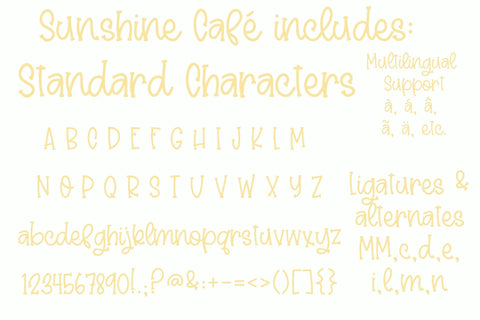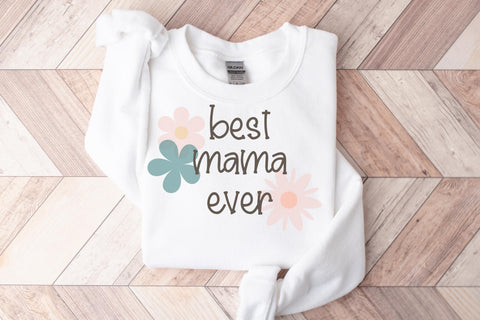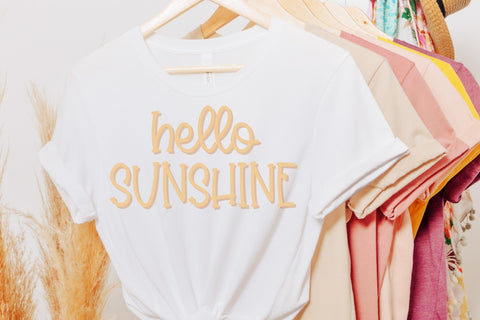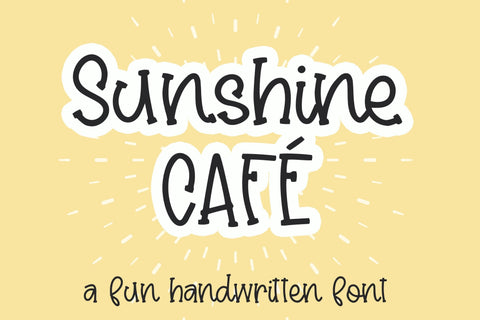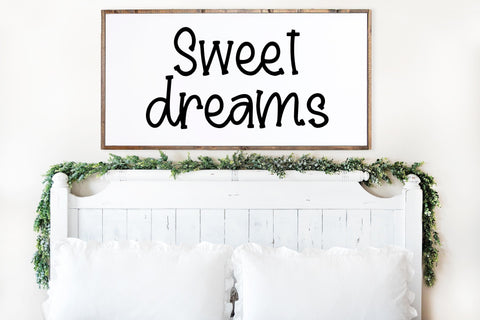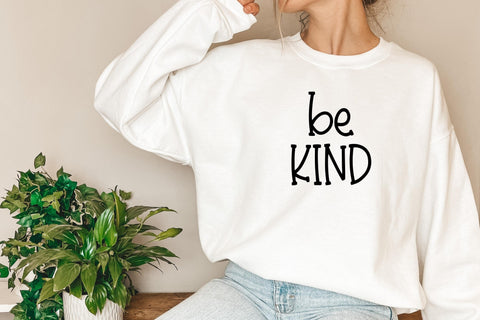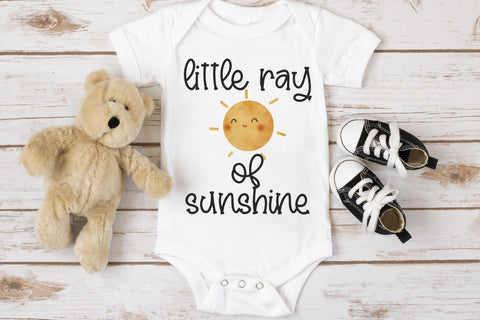
Sunshine Café, A Cute Farmhouse Handwritten Font
Sunshine Cafe is a fun, handwritten serif font is perfect for fun mugs, farmhouse decor, t-shirt design, stickers, and any craft or project for that hand-made farmhouse look. It can be used in illustrator, procreate, cricut or any program that supports open-type fonts.